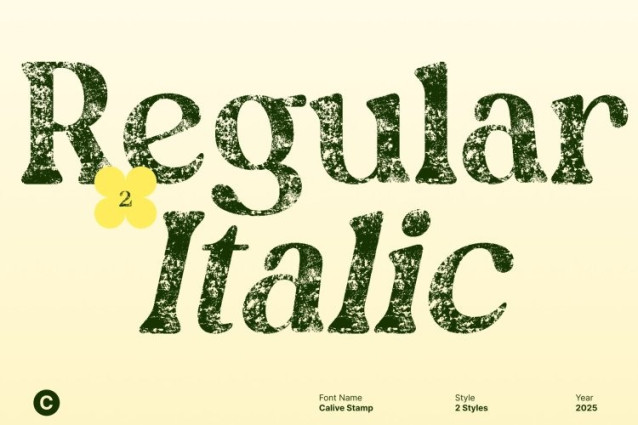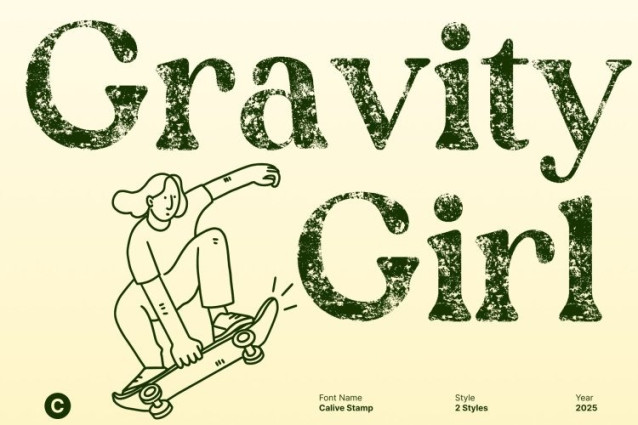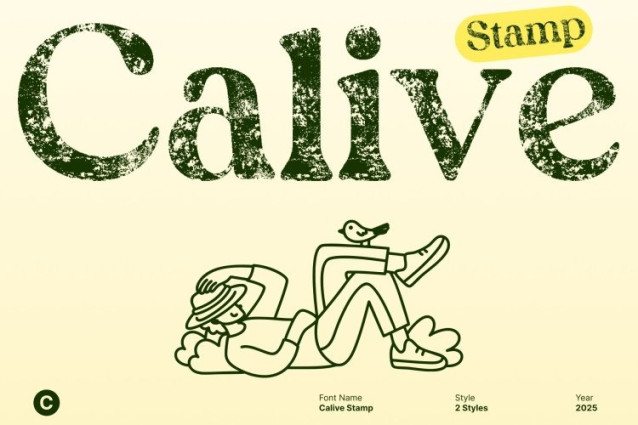
Calive Stamp Font
Calive Stamp Font This font brings the spirit of classic posters, hand–painted signage, and mid-century typography back to life. With its nostalgic curves, sturdy serifs, and warm vintage personality, this font instantly transports your design into an era of charm, character, and timeless appeal. It’s crafted to give every layout a familiar, retro-inspired presence that feels both authentic and inviting.
Vintage Serif Forms Inspired by Old Posters and Signage
Designed with bold, expressive serif shapes, this font delivers strong readability and memorable visual impact. The characters echo the craftsmanship of traditional lettering found in retro advertising, event posters, and storefront designs. These vintage proportions give your work a classic charm that resonates across branding, promotional materials, or themed visual identities.
Stamp Texture for a Bold, Weathered, and Authentic Look
The added stamp effect enhances the typeface with a rugged, imperfect texture bringing a handcrafted, analog feeling to each character. This visual grain evokes aged prints, worn signage, and authentic retro surfaces, adding depth and personality to your designs.